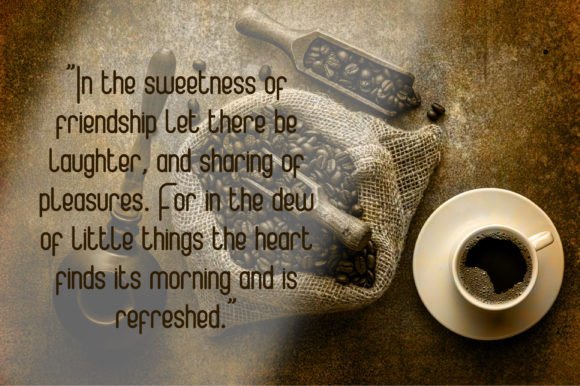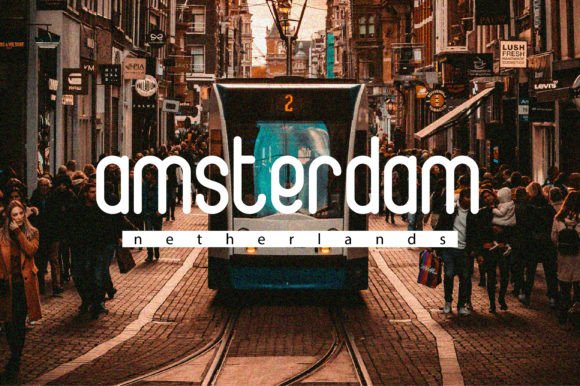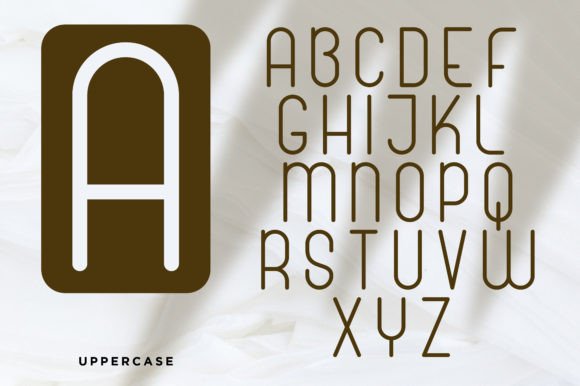
Introduction to Sembagi Arutala Font
Sembagi Arutala is a lovely and timeless sans serif font.
Why Choose Sembagi Arutala Font?
Sembagi Arutala Font offers exceptional quality and versatility, making it a valuable addition to your design toolkit. Whether you’re creating for personal projects or commercial use, Sembagi Arutala Font delivers professional results.